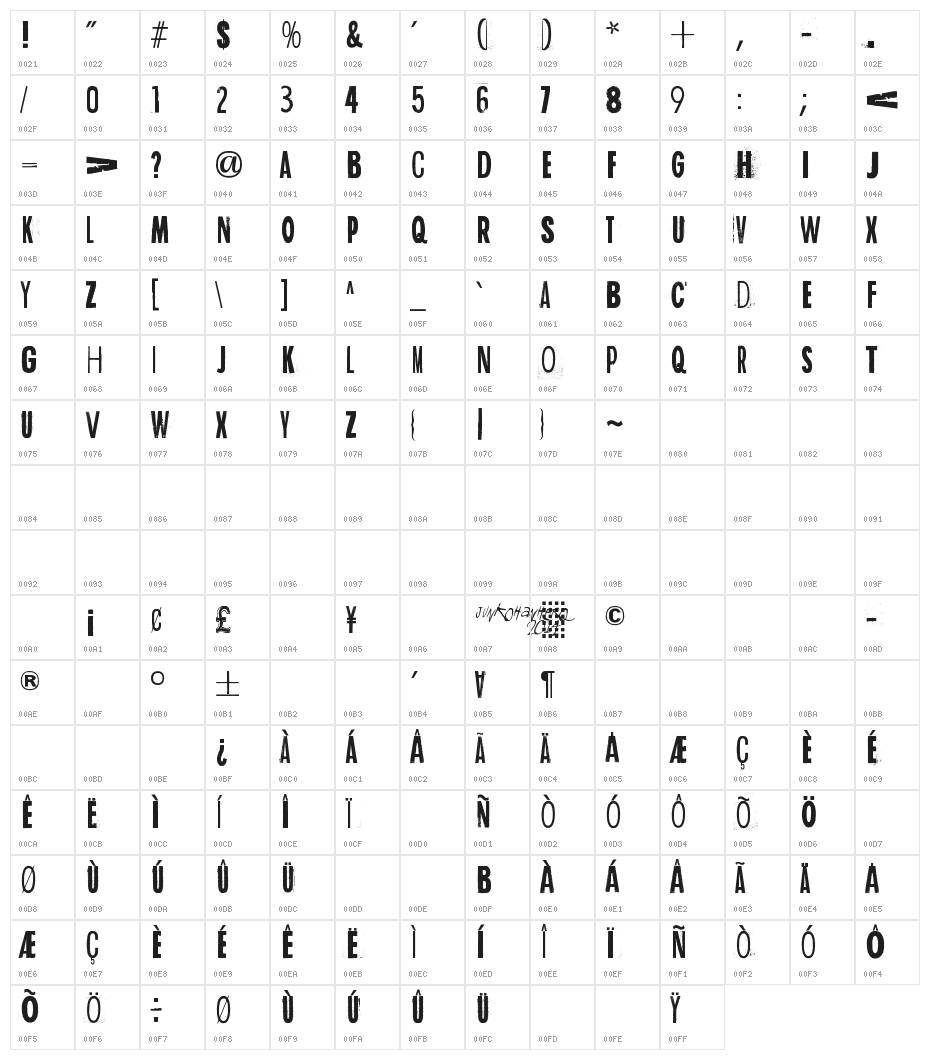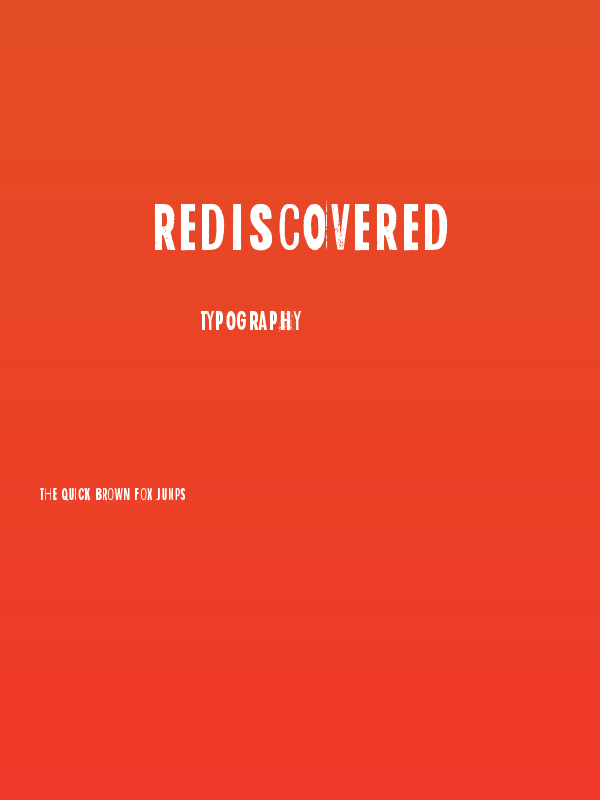
Rediscovered Font
Rediscovered Description
This font exhibits a bold, distressed style with a vintage, industrial feel. The uppercase letters are robust and slightly irregular, giving a hand-printed appearance. The texture within each character adds a worn, weathered look, reminiscent of old printing presses or typewriters. The numerals and special characters follow the same aesthetic, maintaining consistency across the set. This font's unique character and bold presence make it ideal for projects that require a strong, impactful visual statement.
| Overall Style | Vintage |
| Proposed Projects | Ideal for poster designs, album covers, branding for vintage-themed products, and any project requiring a strong, retro aesthetic. |